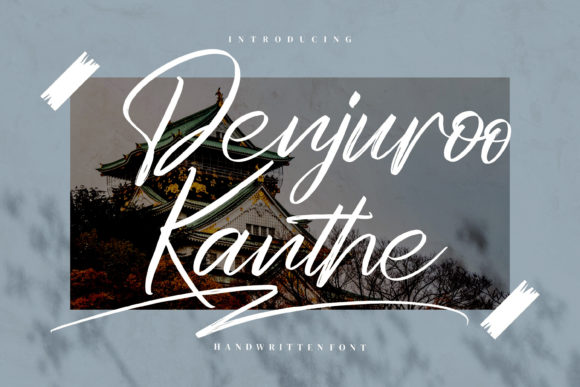
Unleash the Elegance: Introducing Denjuroo Kanthe Script Font
Step into a world of refined beauty and effortless creativity with Denjuroo Kanthe Script Font. Handcrafted with meticulous care, this flowing and flexible font embodies the very essence of artistry.
Indulge in the warmth and romance that radiates from every curve and stroke of Denjuroo Kanthe. Allow your words to dance gracefully across the page, transforming ordinary text into captivating masterpieces.
Let your imagination soar as you discover the endless possibilities that Denjuroo Kanthe holds. Its versatility knows no bounds, making it the perfect companion for a vast array of design projects. From enchanting invitations to heartfelt love letters, Denjuroo Kanthe will effortlessly elevate every creation.
Immerse yourself in the beauty of seamlessly connected characters, each one a testament to the font's impeccable craftsmanship. Experience the joy of effortless writing, where your words flow effortlessly from your heart to the page.
With Denjuroo Kanthe Script Font, you hold the key to unlocking a world of captivating designs. Let your creativity blossom and your words ignite the senses. Embrace the art of beautiful expression today and make Denjuroo Kanthe your indispensable design companion.